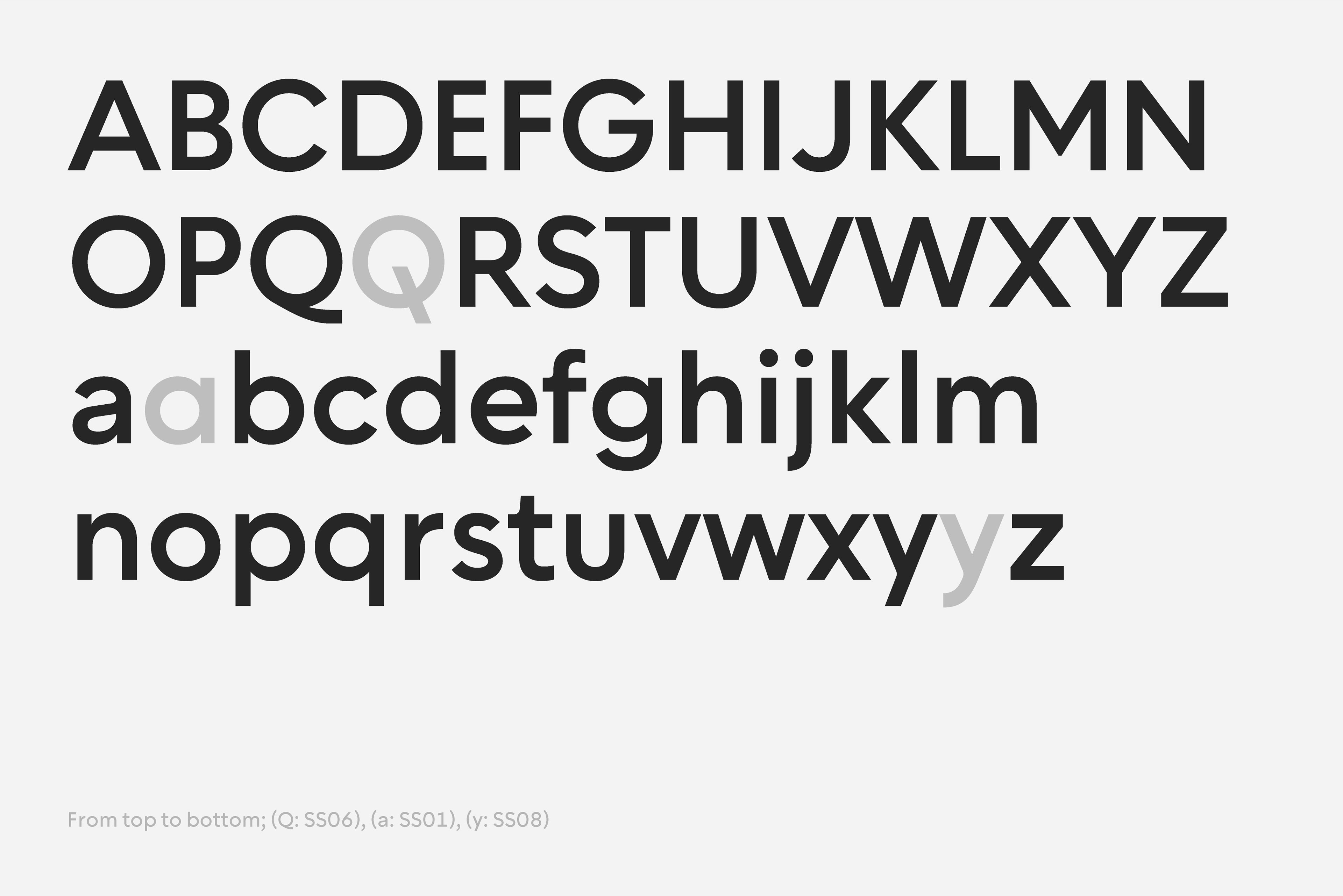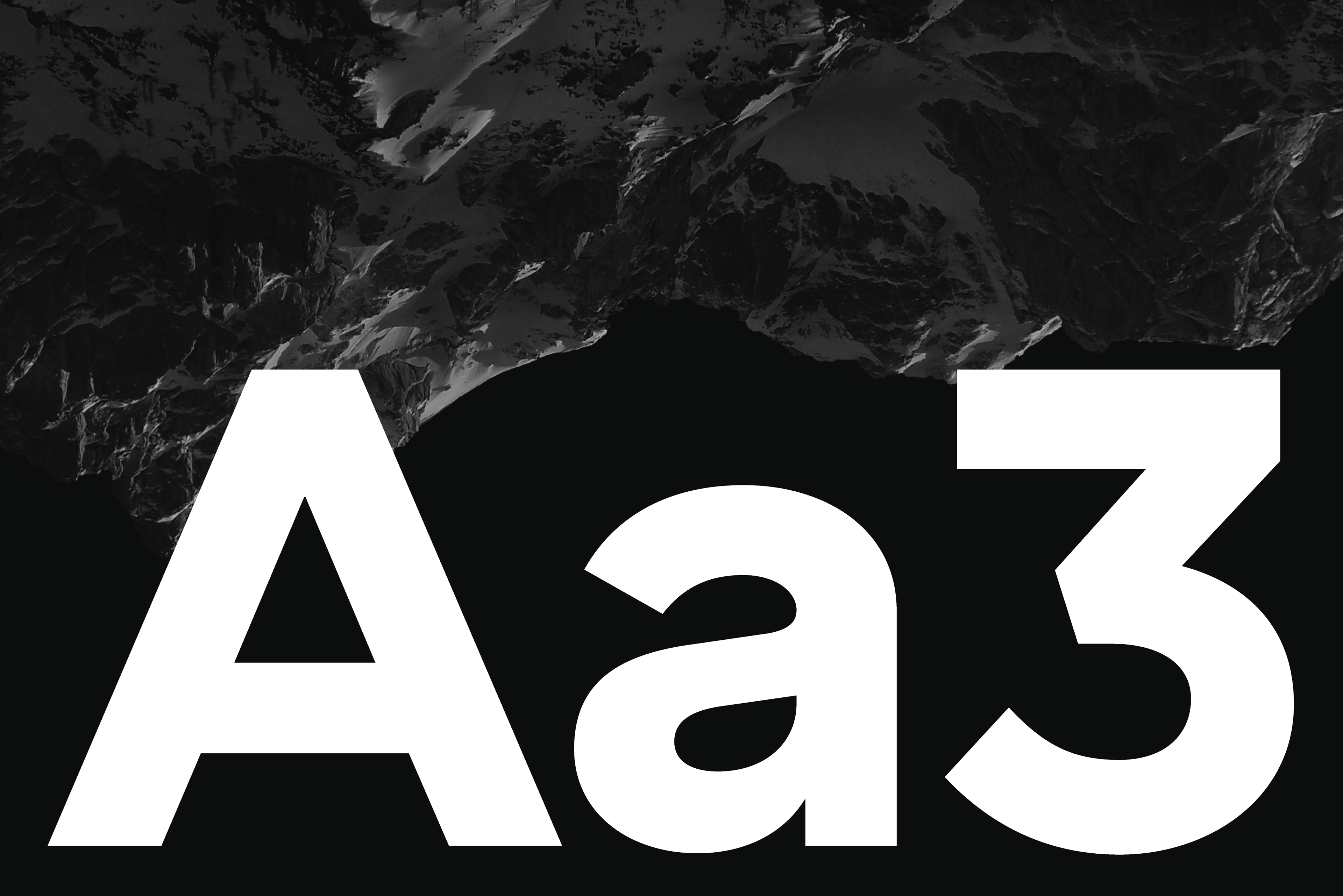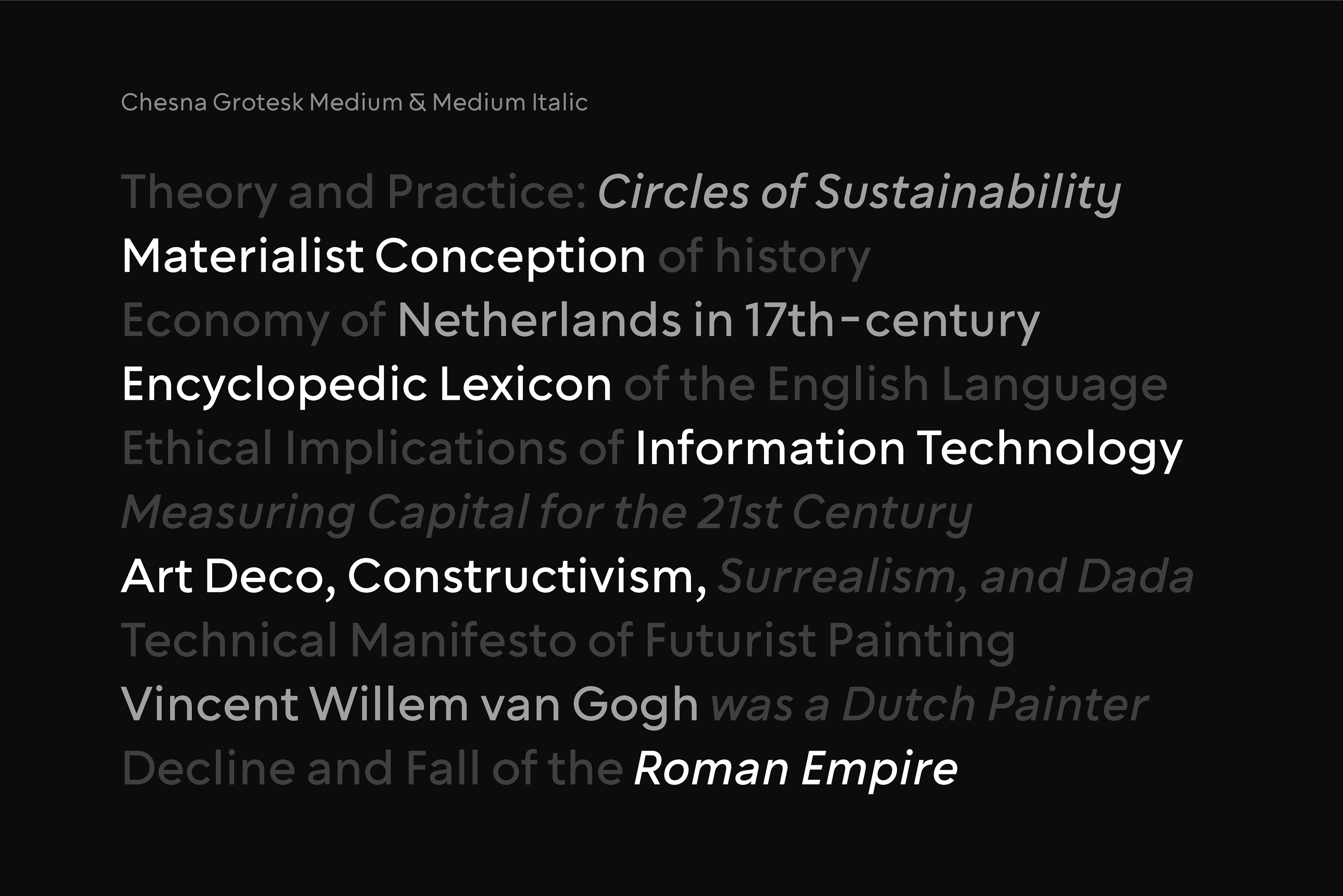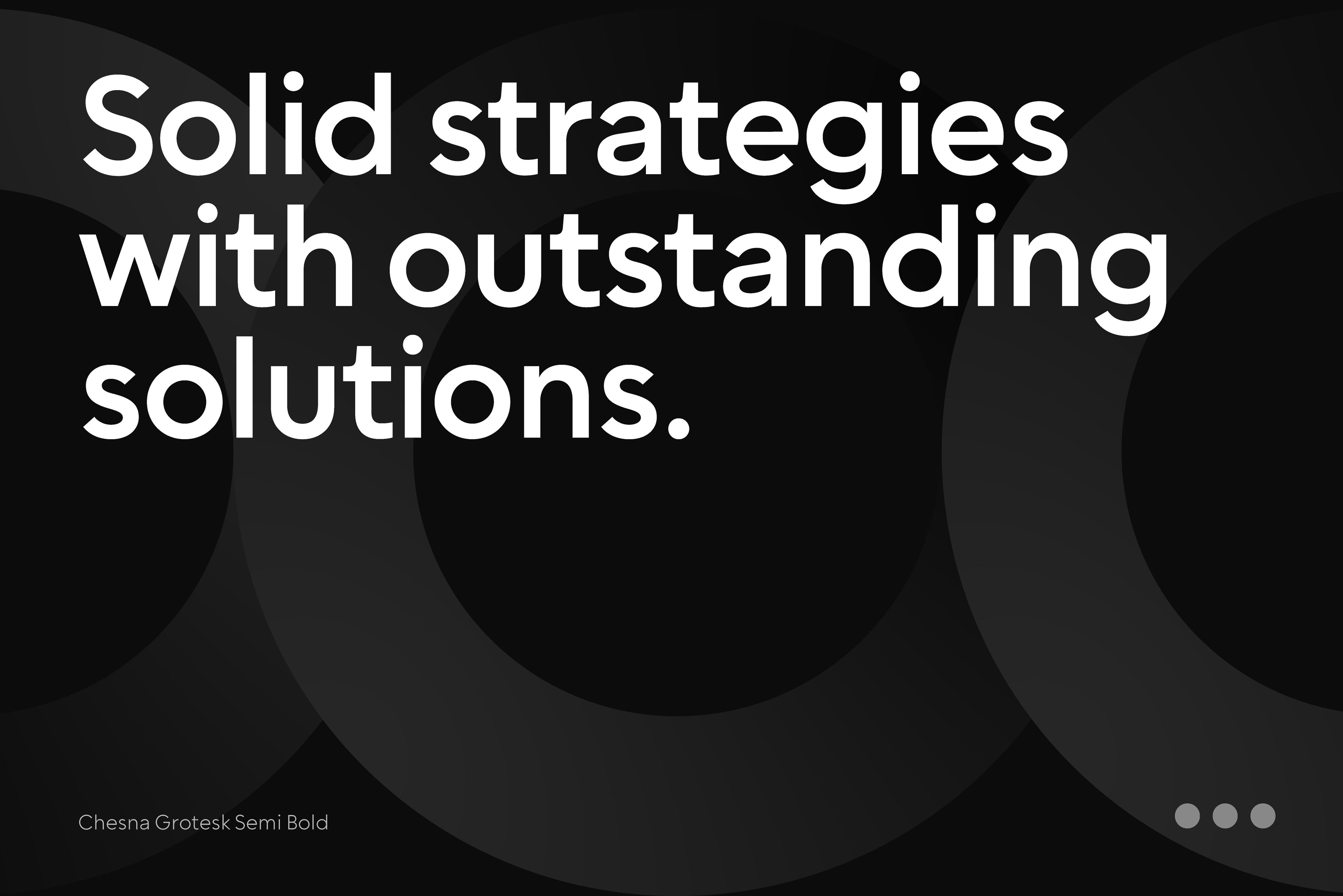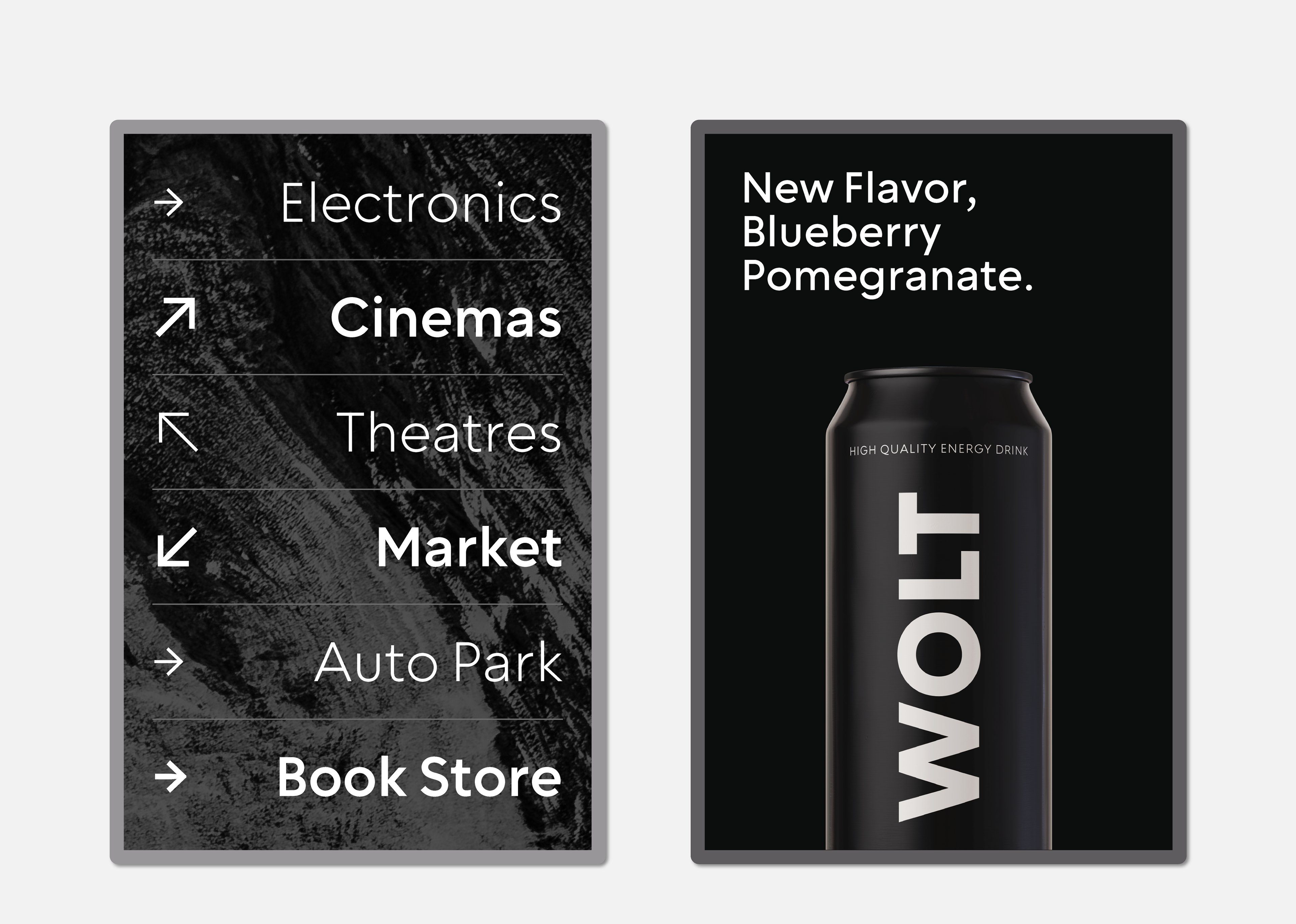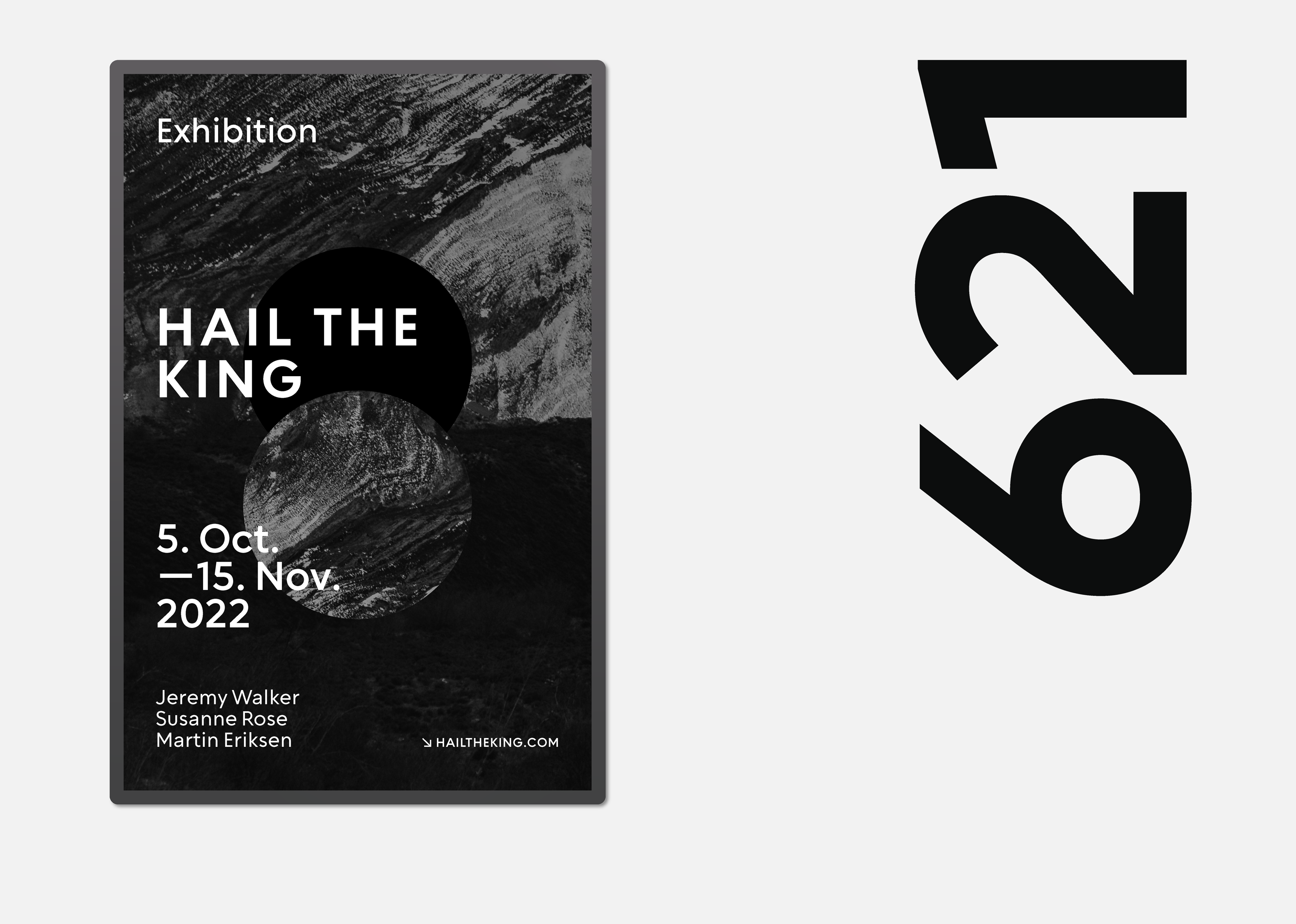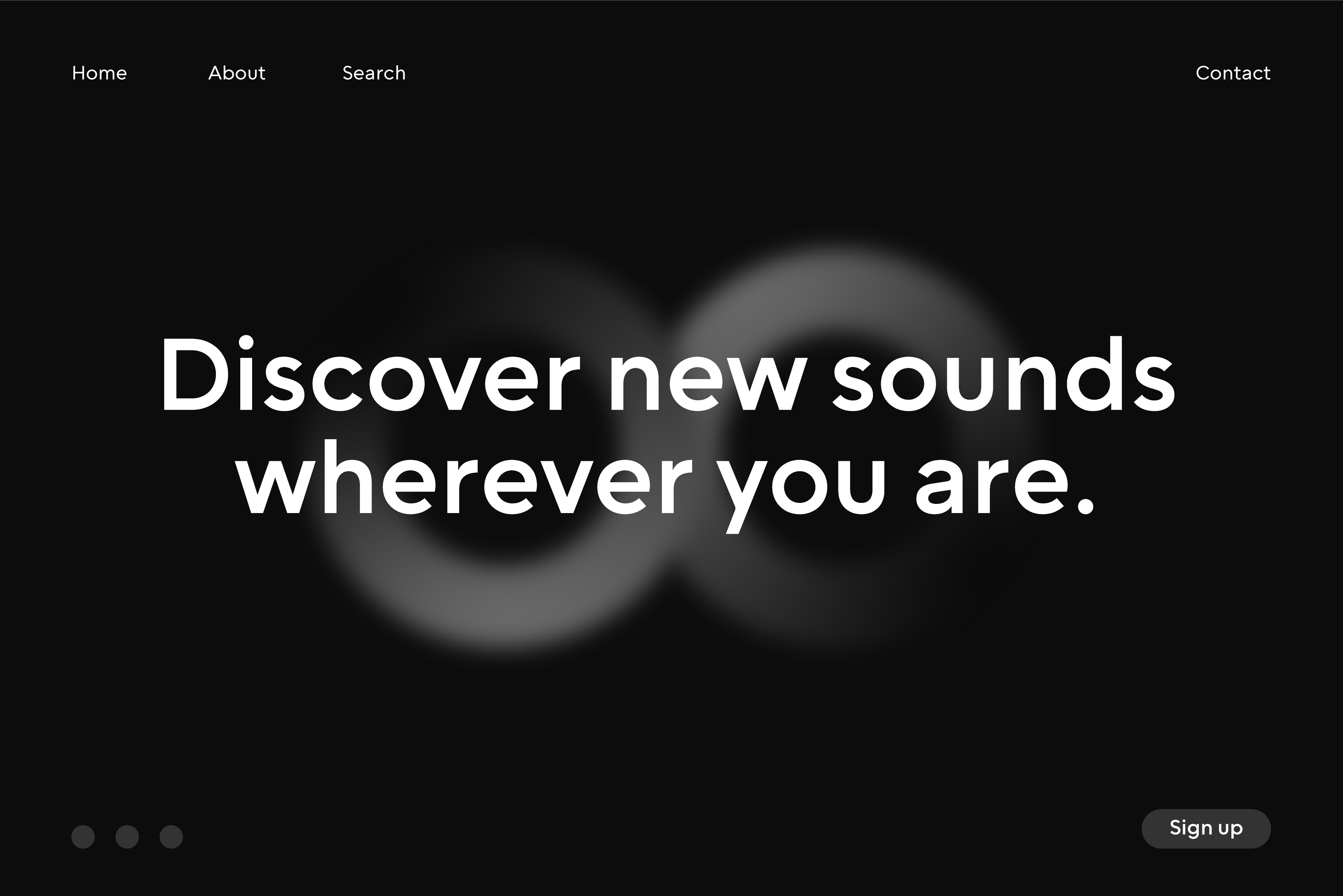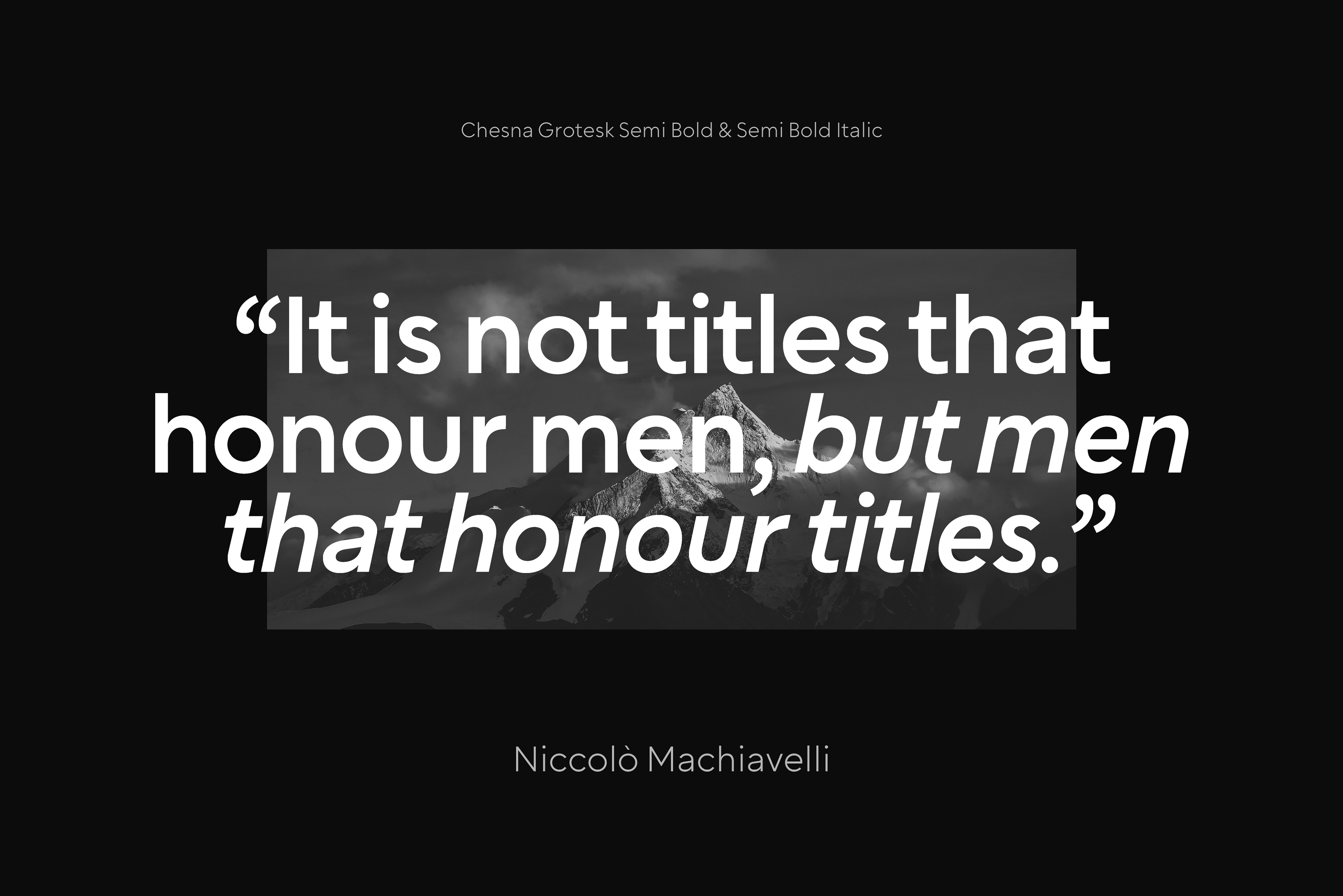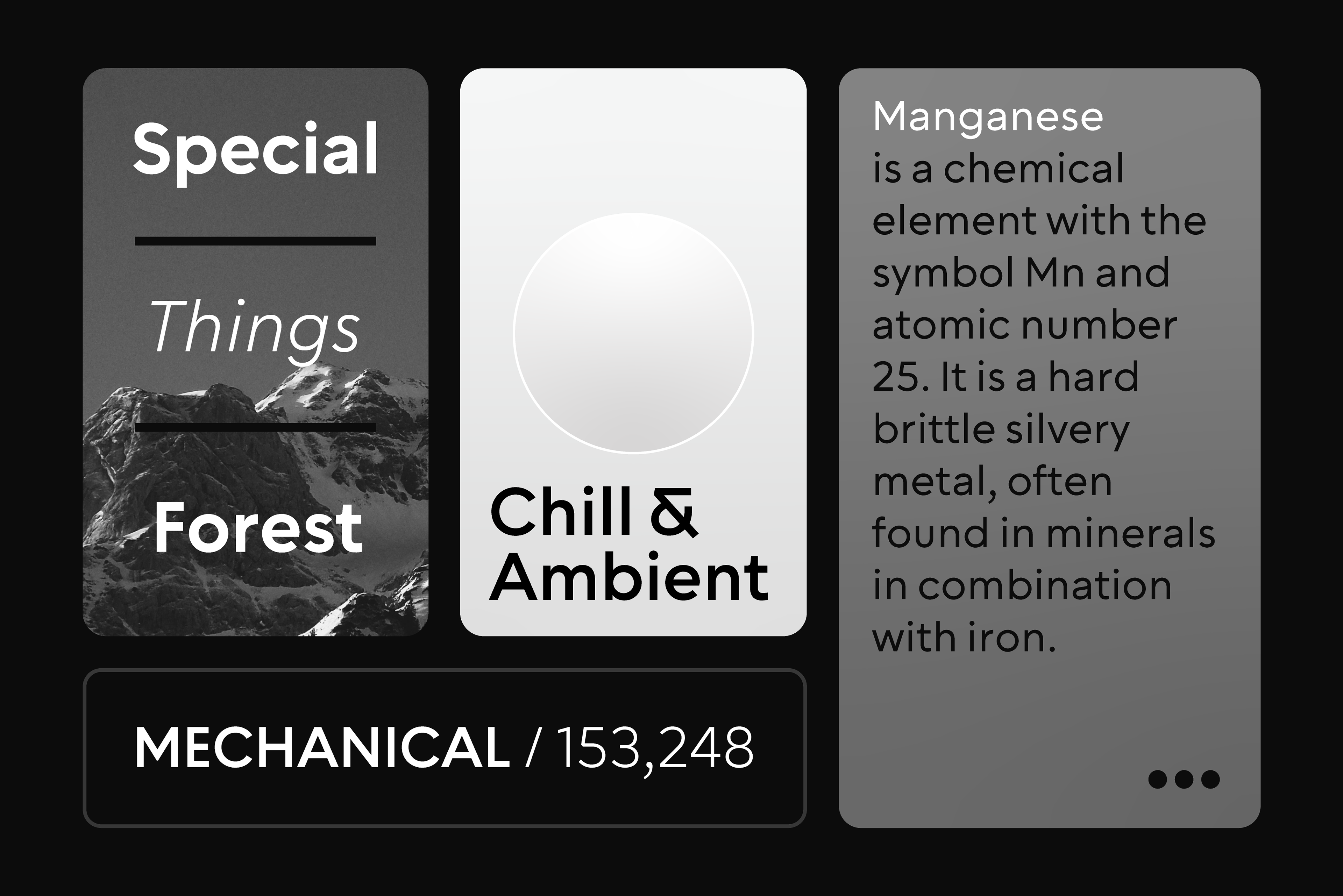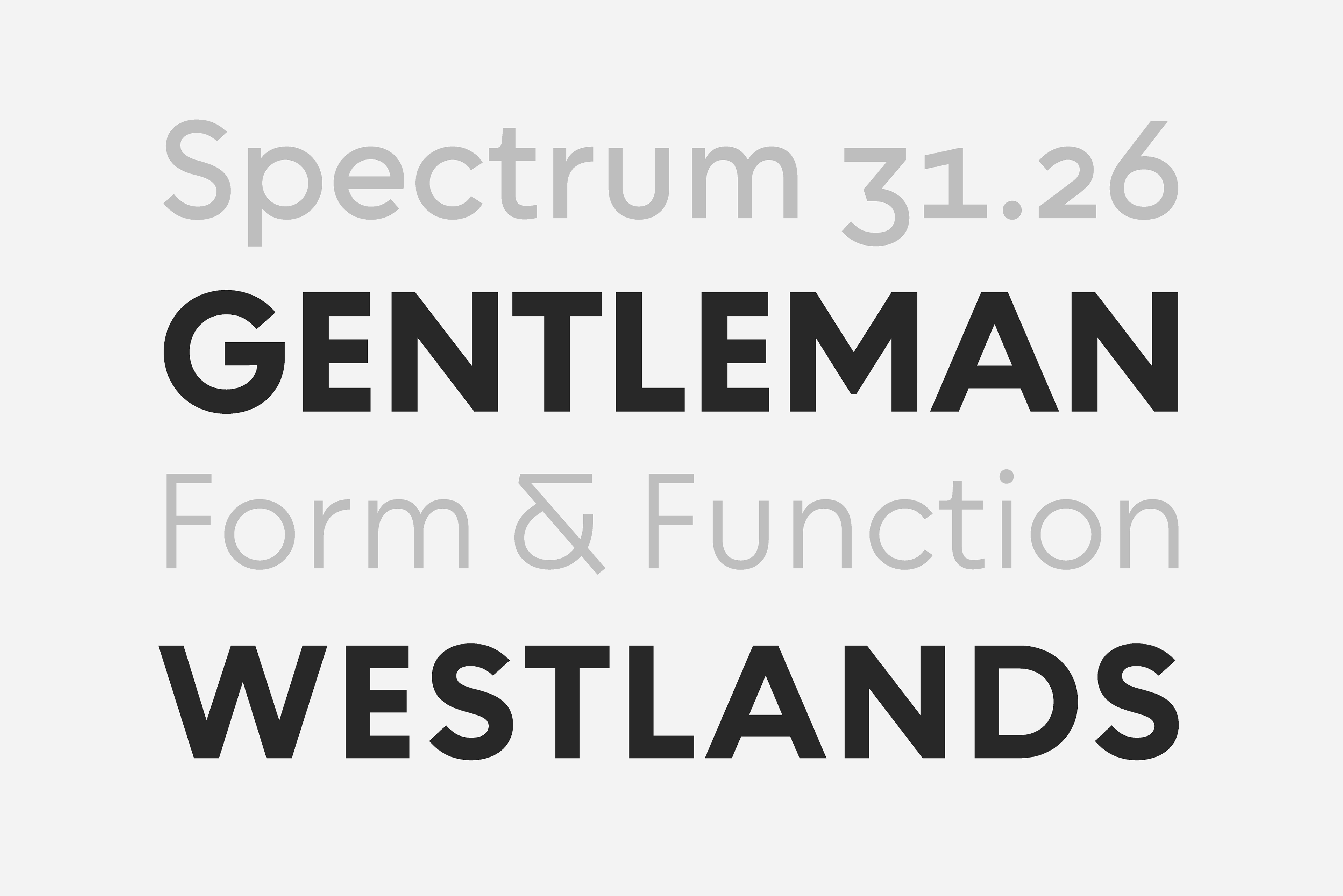
Chesna grotesk is a geometric form-based sans serif typeface. It has 20 weights 10 uprights and 10 italics.
Bringing a new approach to the classic grotesque design, Chesna was inspired by typefaces such as Avenir, Futura and Circular.
Each weight includes extended language support, fractions, tabular numbers, arrows, alternative characters and ligatures.